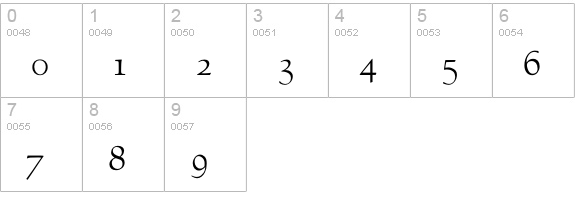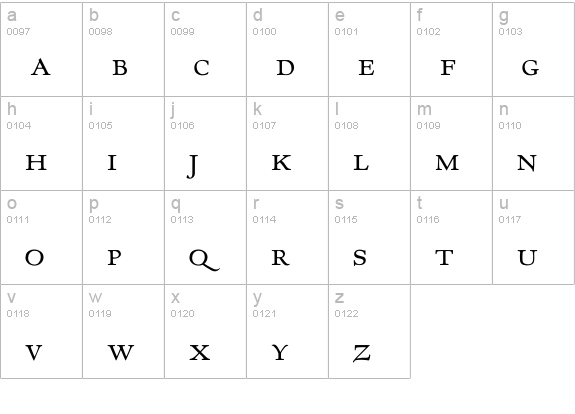
GoudyVillageH-SC Font Details
GoudyVillageH-SC font is a classic and elegant typeface that exudes sophistication and charm. With its tall and slender letterforms, this font is perfect for adding a touch of refinement to any design project. The delicate curves and graceful lines of GoudyVillageH-SC make it a versatile choice for a wide range of applications, from wedding invitations to branding materials. The best part about GoudyVillageH-SC font is that it is completely free to download at FontsMarket.com. This means that you can easily access this beautiful typeface and use it in your projects without any cost. Whether you are a designer looking to elevate your creations or an individual wanting to add a touch of elegance to your personal documents, GoudyVillageH-SC font is the perfect choice. Don't miss out on this fantastic opportunity to enhance your designs with the timeless beauty of GoudyVillageH-SC font. Download it for free today at FontsMarket.com and start creating stunning typographic masterpieces!